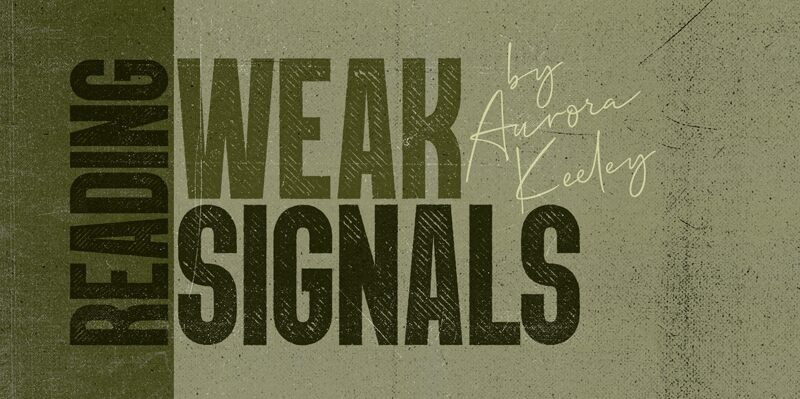
"PunkRocker Stamp" is a bold, attention-grabbing font that exudes an edgy, rebellious spirit. Designed by Emil Bertell, this display font sports a distressed, eroded aesthetic that evokes a sense of gritty, underground punk culture. The condensed width lends it a compact, impactful presence, making it an ideal choice for headlines, logos, and other display-oriented design elements.
The font's weathered, graffiti-inspired appearance conveys a raw, unapologetic tone, lending itself well to applications in music, fashion, and street-inspired branding. Its unconventional style can also be leveraged to add visual interest and a touch of urban flair to a wide range of design projects, from posters and packaging to editorial layouts and digital interfaces.